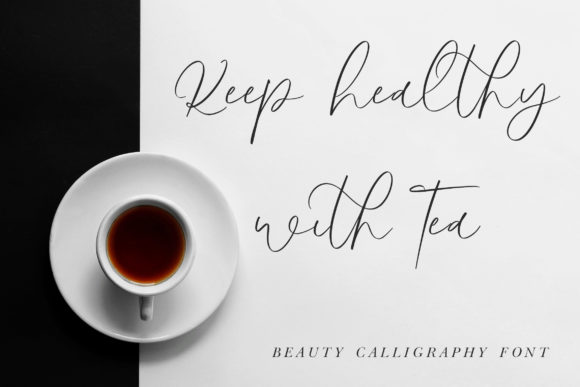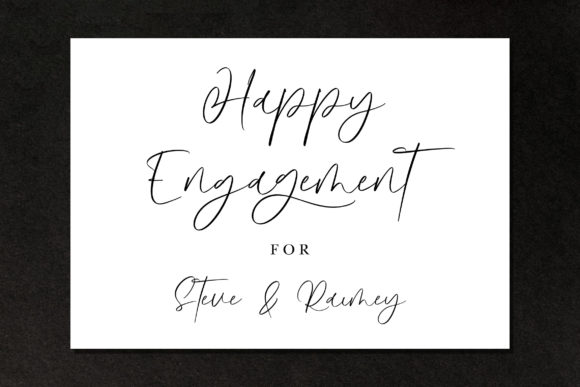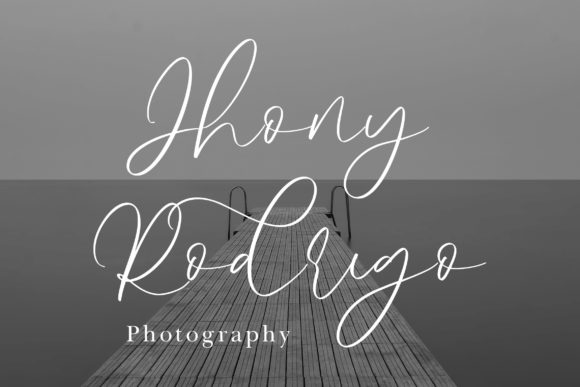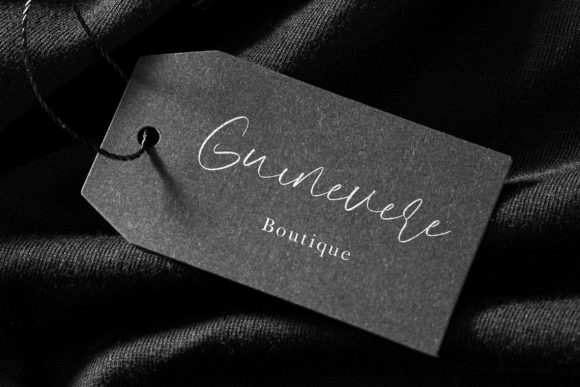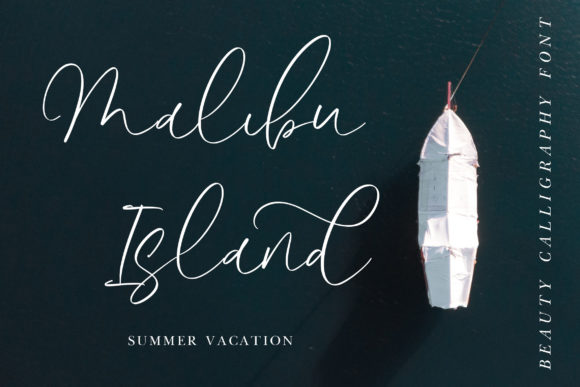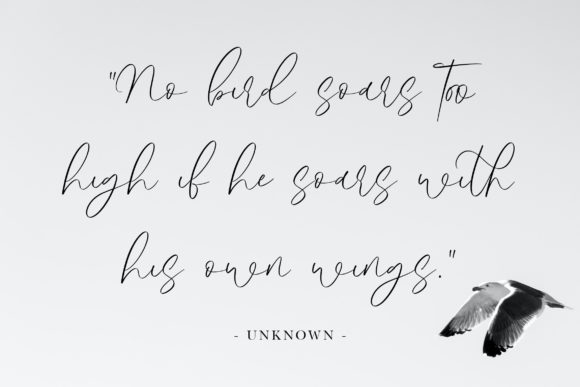
The Timeless Charm of Broadloom Font: A Designer’s Delight
I’ll never forget the moment I stumbled upon Broadloom Font while working on a branding project for a cozy boutique hotel. I was on a tight deadline, and my design was feeling flat and lifeless. I had tried countless fonts, but none seemed to capture the warm, inviting atmosphere I wanted to convey. That was when I discovered Broadloom – a lovely, timeless handwritten font that instantly elevated my design.
The Good ✨
- Unique and beautiful letterforms that add a personal touch to any design ✅
- Perfect for creating eye-catching logos, branding, and quotes 📣
- Works well in both digital and print formats 📊
- Easy to read, even in smaller sizes 🔍
The Not-So-Perfect 🤔
- Some letters may appear a bit inconsistent in terms of spacing ⚠️
- Limited availability of stylistic alternates (but still plenty to work with!) 🤔
The Story Behind Broadloom: Designer Inspiration
Broadloom Font was designed with the intention of capturing the warmth and character of traditional handwriting. The designer, inspired by vintage textiles and classic typography, aimed to create a font that would feel both timeless and approachable. The result is a beautiful, handmade font that adds a personal touch to any design.
| Font Name | Broadloom Font |
| Author | Hatf Type |
| Is Broadloom Font suitable for body text? | While Broadloom Font is beautiful, it’s best suited for headlines, titles, and short paragraphs. For longer body text, a more traditional serif or sans-serif font may be more readable. |